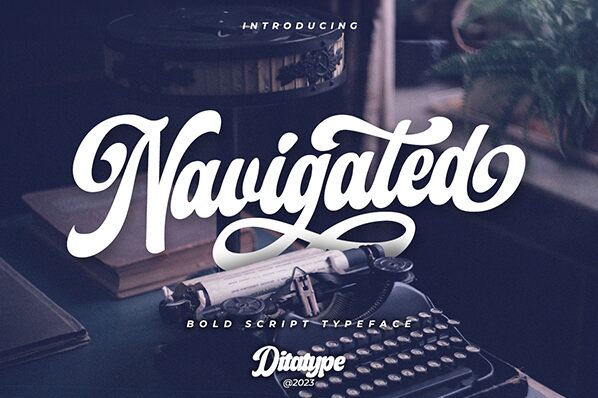
Navigated font designed by Ditatype is a free retro brush font with bold strokes and a condensed form. This elegant and flowing typeface brings together an energetic and cohesive appearance through its expressive letters that are shaped as a connected script. It appears equally beautiful on both large surfaces such as billboards or when printed at smaller scales.
Use it wherever you wish to impress the viewer by emphasizing professionalism with every letter of your text: logos, titles, headlines, invitations, wedding abstract materials and posters. Additional usage ideas include in-store labels, greeting cards, quotes for social media, prints or even clothing tags.